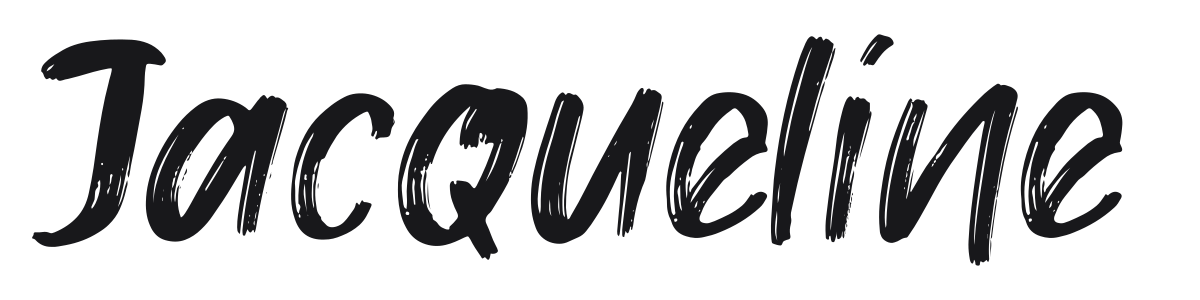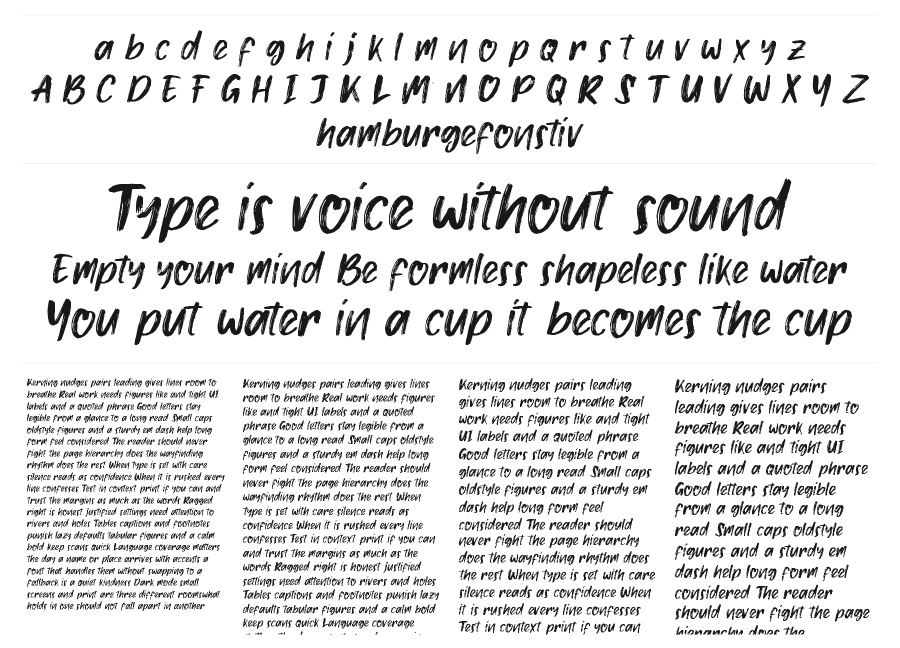
Jacqueline
Jacqueline is a casual brush script with raw, textured strokes that look like they were painted in a single fast pass. The bristle-split ink texture and natural irregularities give it genuine handmade energy without feeling labored. It works well on packaging, posters, and brand identity where a human, artisan touch matters.